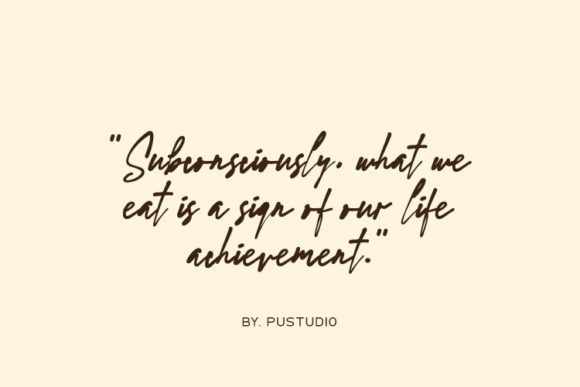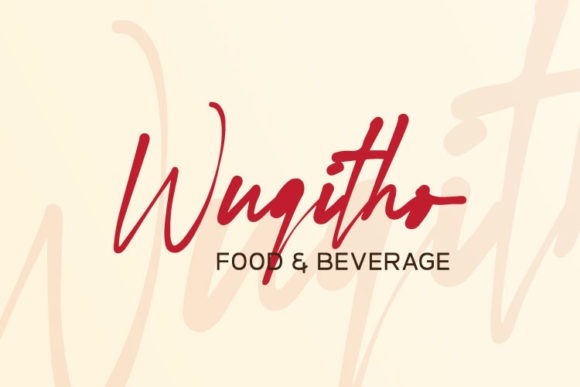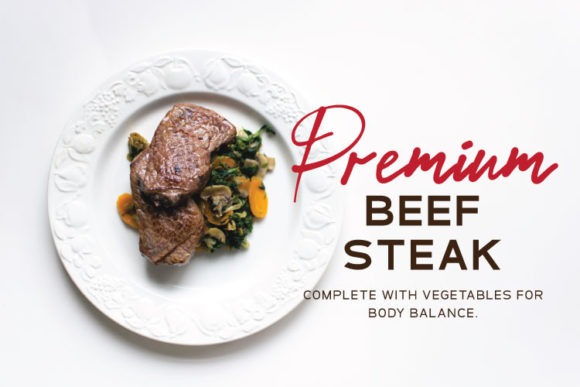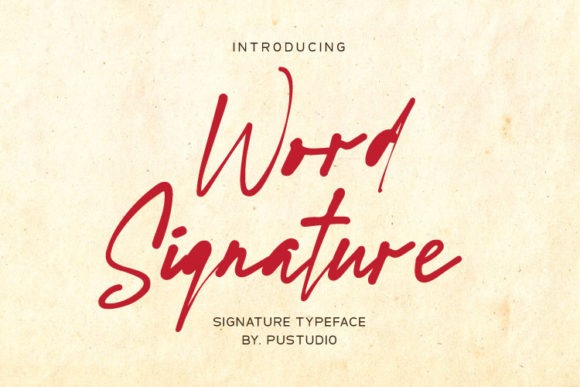
Word Signature Font
Word Signature Font is a Modern Signatue, that gives a feel of girly font type. Made from font designer named pustudio. An Original typeface that suitable for any graphic designs such as branding materials, t-shirt, print, business cards, logo, poster, t-shirt, photography, quotes .etc